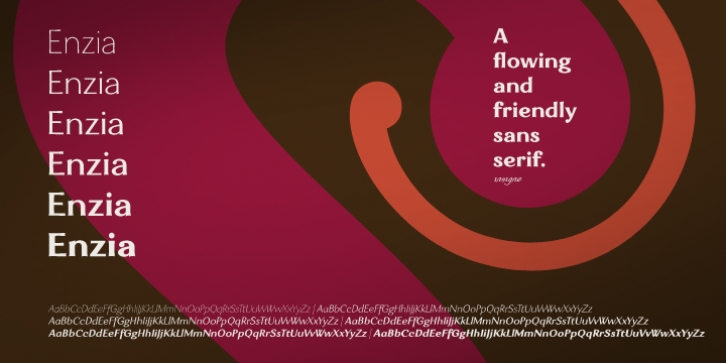
Enzia is a friendly and flowing sans serif.
Enzia exists somewhere between a slab serif and a semi-sans, and features flared vertical stems and rounded terminals. Its bulbous terminals and open counters inject a flavor of ease and excitement. Enzia provides plenty of impact and is best used with short to medium length texts.
Six different weights provide plenty of versatility and contrast for poster designs, logotypes and headlines, while still retaining excellent legibility for extended copy.